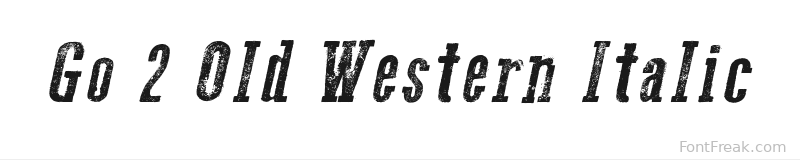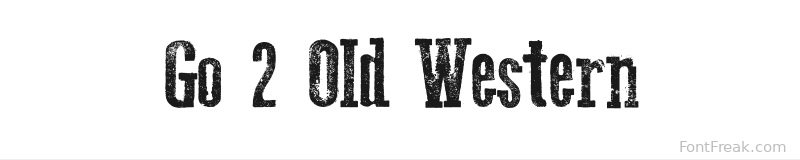
Go 2 Old Western
Go 2 Old Western Italic
About Go 2 Old Western
Go 2 Old Western, designed by Galdino Otten Fonts in 2015, is a striking display typeface that embodies the rugged charm of the Old West. This font is characterized by its bold, serif style, featuring a robust stroke weight that conveys strength and character. The letters exhibit a moderate contrast, with thicker strokes complementing the slightly thinner details, providing an engaging visual appeal. The spacing is well-considered, allowing for clarity while maintaining an authentic rustic feel, making it ideal for various design applications.
This versatile font finds its best use in contexts where a touch of nostalgia and adventure is desired. It's perfect for creating captivating movie posters that aim to evoke a sense of timelessness and heroism, as well as for designing rustic restaurant menus that highlight hearty, traditional fare. Wedding invitations can also benefit from its unique flair, especially for couples looking to celebrate a vintage or Western-themed ceremony. Additionally, Go 2 Old Western can be an excellent choice for branding small businesses that want to convey a sense of heritage and authenticity, such as craft breweries or artisanal shops.
Targeting graphic designers, small business owners, and content creators, this font appeals to those who appreciate the intersection of style and functionality. It serves as a powerful tool for anyone looking to add a distinctive touch to their projects.
What sets the Go 2 Old Western font apart is its ability to transport viewers to a different era while remaining versatile enough for modern uses. With a free license, it becomes accessible for all creative endeavors, making the Go 2 Old Western font free download an opportunity not to be missed for those in search of a unique and impactful typeface.